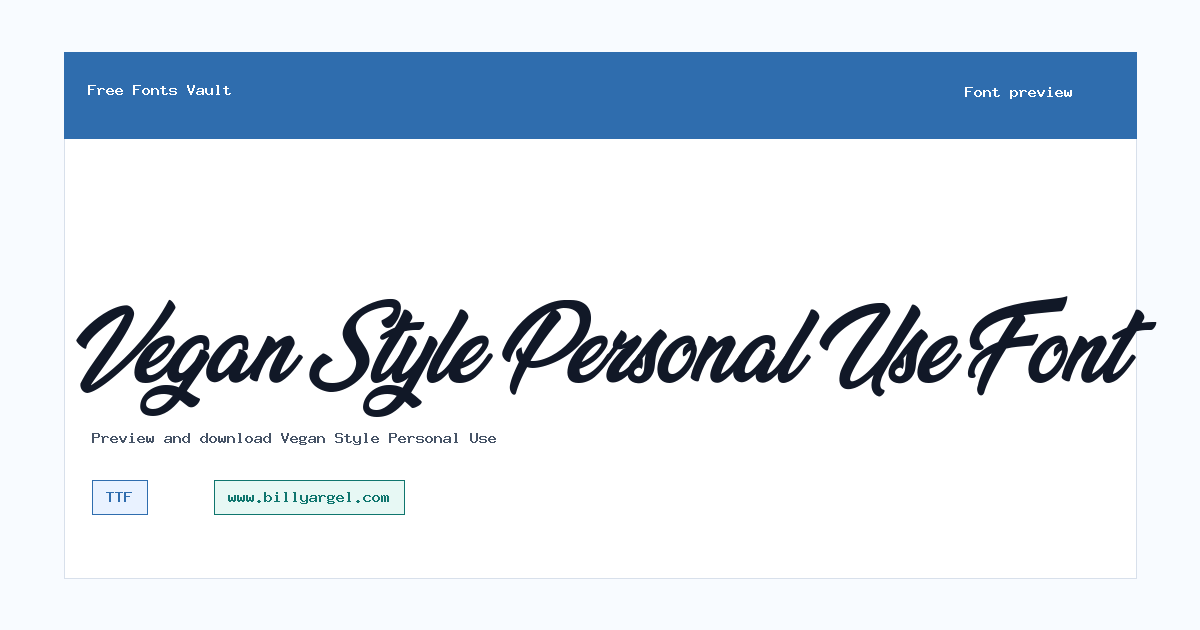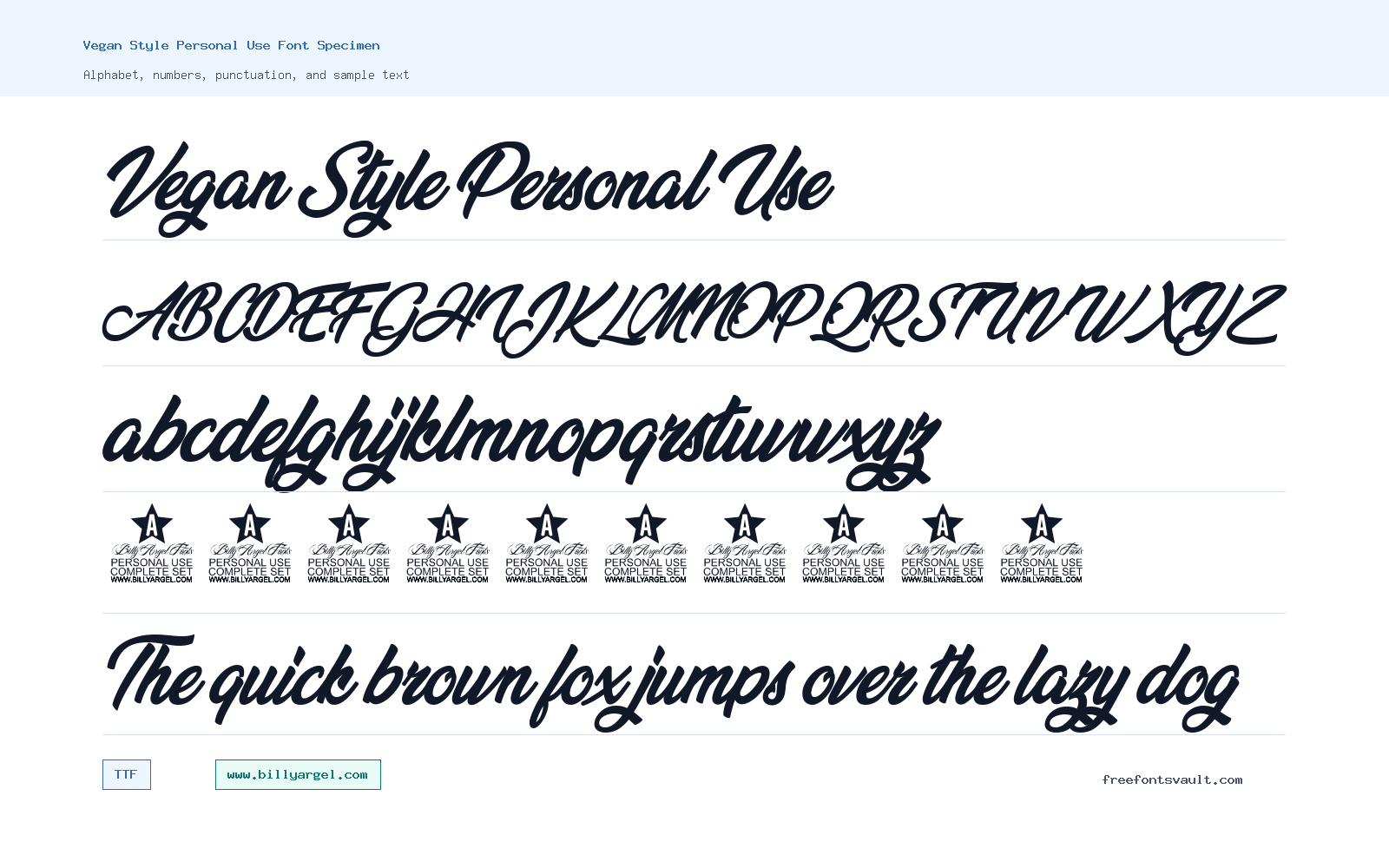
Vegan Style Personal Use
- Designer Billy argel
- Foundry Billy Argel
Vegan Style Personal Use font.
Vegan Style Personal Use is a decorative calligraphy script font by Billy Argel Fonts. It is made for expressive short text, especially personal projects that need a handwritten, stylish, or romantic tone.
About Vegan Style Personal Use
Vegan Style has a flowing script look with a calligraphic rhythm. The regular TTF file works well for names, invitation headings, greeting cards, quotes, labels, and social graphics where the lettering itself should carry the mood. It is strongest at medium and large sizes, where the curves have enough room to stay clear.
- Calligraphy script style for decorative short text.
- Best at display sizes where the script strokes remain clear.
- Works well with a simple sans serif or serif companion for supporting text.
- Personal invitations, greeting cards, and stationery tests.
- Short quote graphics, name designs, and social media posts.
- Personal craft projects, labels, and decorative headings.
- Non-commercial mockups that need a flowing script accent.
Keep phrases short, preview the final wording, and use strong contrast behind the script. For paragraphs, menus, or small captions, use a cleaner companion font so the decorative script remains a highlight rather than the whole reading system. Also compare the same phrase on light and dark backgrounds, because thin script details can disappear when contrast is weak.
Who designed Vegan Style?
The font is credited to Billy Argel Fonts.
What projects suit this font?
It suits personal invitations, names, quotes, greeting cards, labels, and short decorative headings.
Is Vegan Style good for paragraphs?
No. Use it for short display text and pair it with a simpler font for longer reading copy.